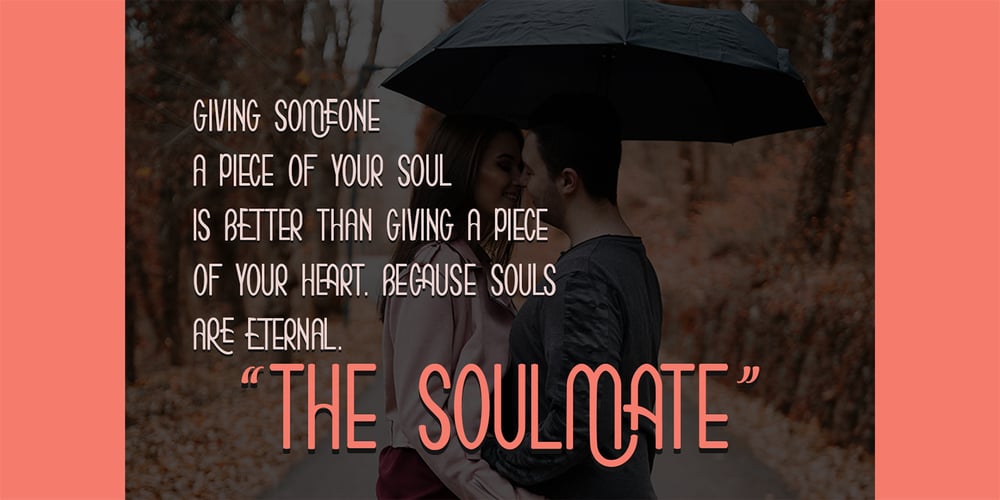
Romario Font Family was designed by Ayah Phoen and published by Axara Creative. Romario contains 1 styles and family package options. Romario is a beautiful and light display font with a cool vibe. Use it to add a modern feel to any design project! Romario includes initial and terminal letters, alternates, stylistic alternate, ligatures and multiple language support. Romario is coded with PUA Unicode, which allows full access to all the extra characters without having special designing software. Mac users can use Font Book , and Windows users can use Character Map to view and copy any of the extra characters to paste into your favorite text editor/app. To enable the OpenType Stylistic alternates, you need a program that supports OpenType features such as Adobe Illustrator CS, Adobe Indesign & CorelDraw X6-X7, Microsoft Word 2010 or later versions. If you need help or advice, please contact me by e-mail. Thank you for your purchase!